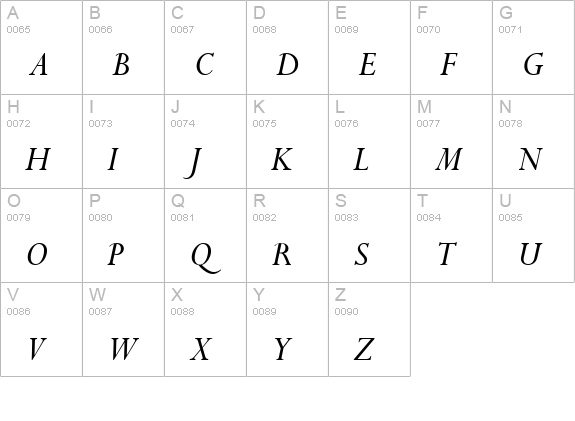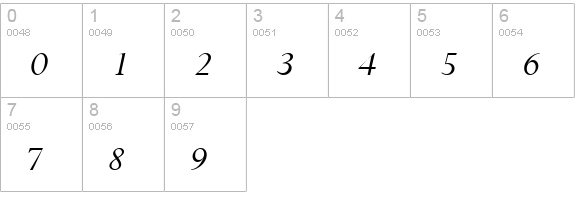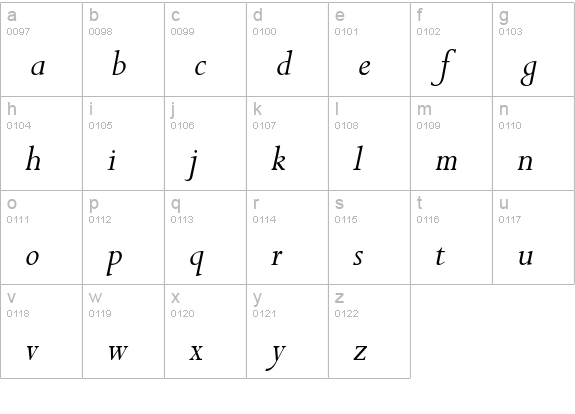
Compleat SSi Italic Font Details
Compleat SSi Italic is a distinctive, italic variant in the Compleat typeface family \xE2\x80\x94 well suited to design and typography projects.
Compleat SSi Italic font is a sophisticated and elegant typeface that exudes a sense of modernity and style. Its italicized design adds a touch of flair and personality to any text or project, making it perfect for use in both print and digital media. The sleek and flowing curves of Compleat SSi Italic create a harmonious balance that is visually appealing and easy to read. This versatile font is ideal for a wide range of applications, including branding, advertising, editorial design, and more. Whether you're looking to elevate your website, create eye-catching social media graphics, or design stunning printed materials, Compleat SSi Italic is sure to make a bold statement. And the best part? Compleat SSi Italic is available for free download at FontsMarket.com. Simply head over to the website to grab your copy of this fantastic font and start using it in your projects today. Don't miss out on the opportunity to enhance your designs with the beauty and sophistication of Compleat SSi Italic.